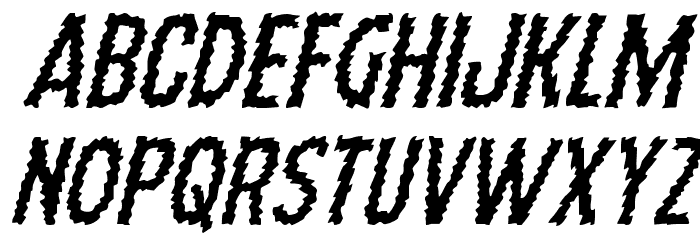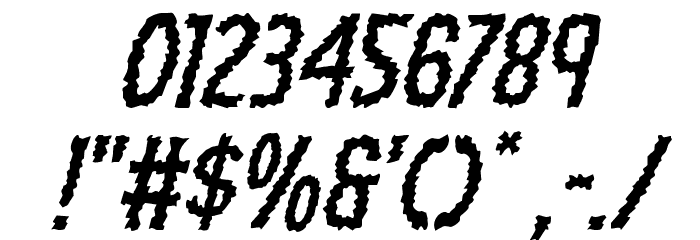
Ampire Italic Font
This font features a bold and dynamic italic style, characterized by its jagged, energetic strokes that give it a sense of movement and intensity. The uppercase and lowercase letters maintain a consistent slant, enhancing the italicized effect. The numbers and special characters follow the same style, ensuring uniformity across all glyphs. The font's design is reminiscent of a hand-drawn aesthetic, with each character appearing as if it has been meticulously crafted with a brush or pen. This gives it a unique, artistic flair that stands out in any design.
A bold, jagged italic font with a dynamic, hand-drawn appearance.
- Proposed Projects: Ideal for projects that require a bold, artistic touch such as posters, album covers, or branding for creative industries.